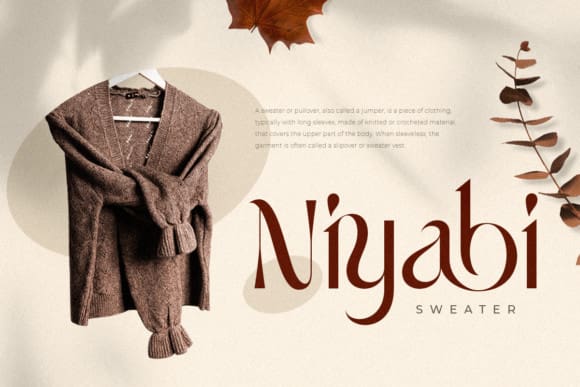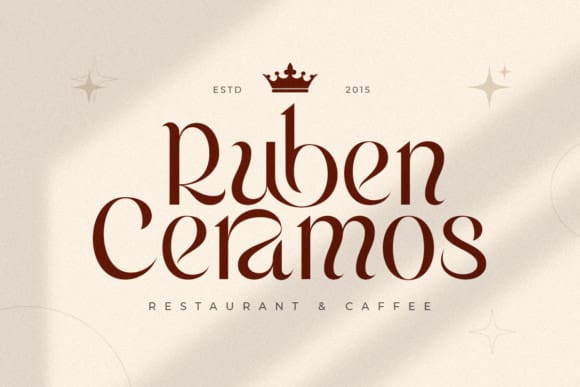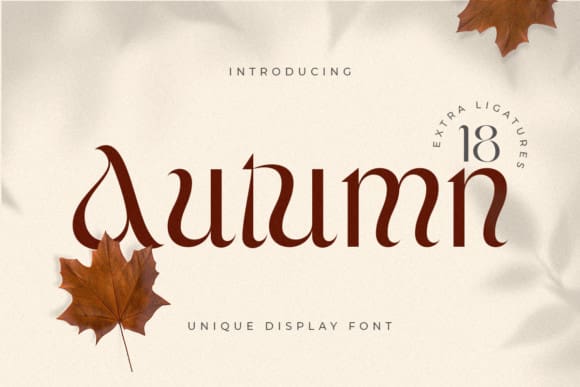
Autumn Display Typeface
Autumn Display Typeface, is an elegant and bold serif font with an Arabic flare. Fall in love with its incredibly versatile style and use it to create gorgeous wedding invitations, beautiful stationary art, eye-catching social media posts, and much more!